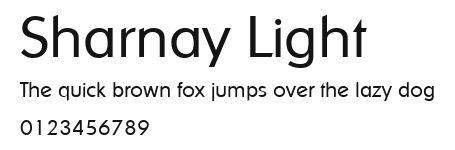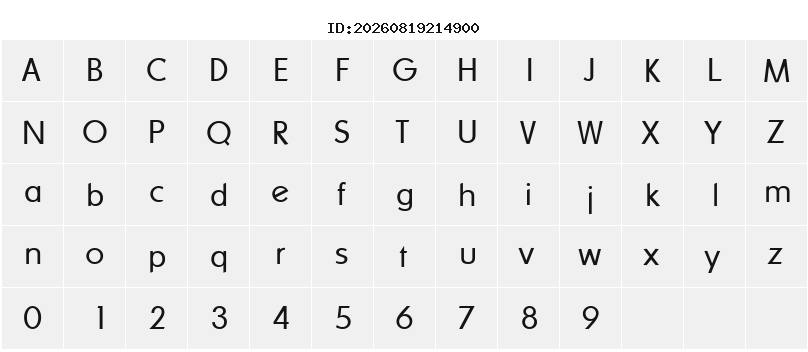
• Font Name: Sharnay Light
• Full Font Name: Sharnay Light
About Sharnay Light.ttf
Sharnay Light.ttf is a modern, elegant sans-serif font designed for ultimate readability and visual harmony. Perfect for branding, headlines, web design, and print materials.